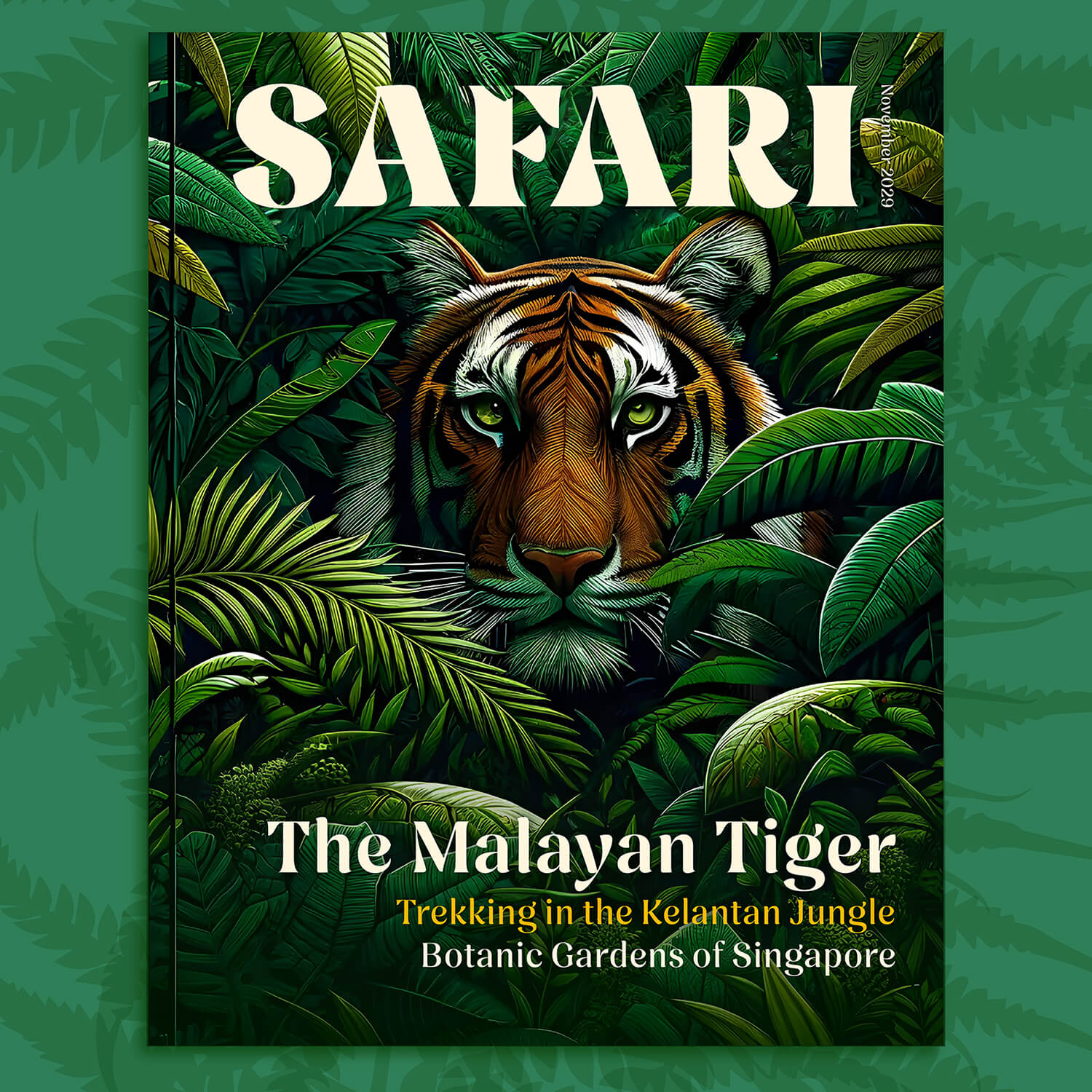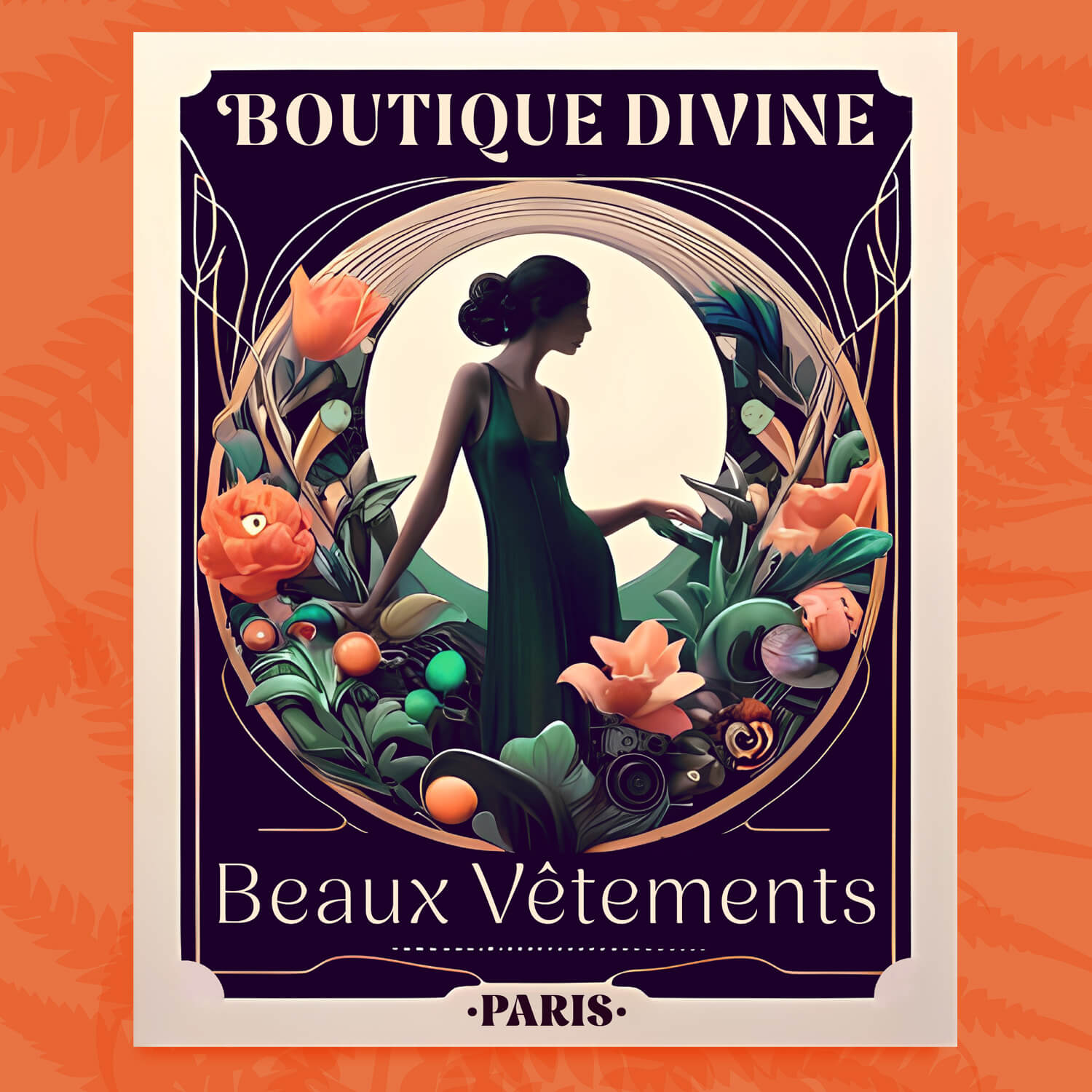
Nave
Features
Opentype Features
Alternative A
Alternative 3
Standard Ligatures
Discretionary Ligatures
Swashes
Oldstyle Figures
Tabular Figures
Fractions
Superiors [1,2,3]
Ordinals
Nave blends tradition with creativity. Its characters feature a formal, structured outer shape balanced by flowing, sensuous inner forms, adding elegance to any project.
Designed for forward-thinking creatives, Nave combines classic design with personality and warmth. Its contrasting qualities breathe life into words, making it as versatile as it is distinctive.
Nave features in Creative Boom’s Top 50 fonts for 2025